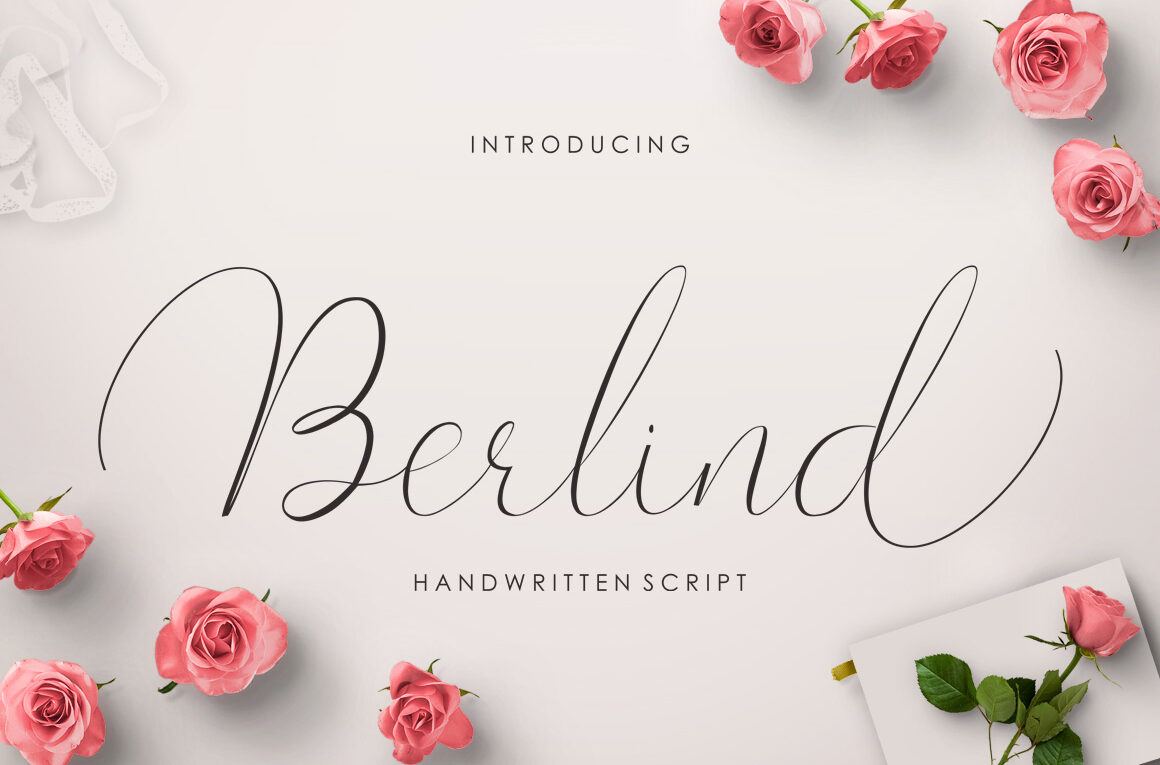
Introducing Berlind Font: A Timeless Handwritten Typeface
In the world of typography, few fonts manage to strike a balance between classic elegance and modern versatility. Berlind Font is one such exceptional typeface that has captured the hearts of designers and crafters alike. This beautiful formal script boasts an elegant touch, making it perfect for a wide range of brandable designs and styles.
The Characteristics of Berlind Script
Berlind Script is a handwritten typeface with classic roots, drawing inspiration from traditional calligraphy. Its elegant strokes and fluid connections evoke a sense of sophistication and refinement. The font features a range of alternate characters, including:
- Initial and terminal letters for added flair
- Alternates for varied typographic expressions
- Swashes for a touch of drama and elegance
- Ligatures for seamless connections
These features allow designers to experiment with different styles and create unique visual identities for their brands.
Berlind Font in Design and Crafting
Berlind Font is an incredibly versatile typeface that can be used in a variety of design and crafting projects. Its classic elegance makes it suitable for:
- Logo design and branding
- Stationery and invitations
- Web design and digital marketing
Whether you’re creating a luxury brand or a personal craft project, Berlind Font is sure to add a touch of sophistication and style.
Multiple Language Support
In today’s globalized world, designers need fonts that can support multiple languages. Berlind Font rises to the challenge, offering support for a wide range of languages. This feature makes it an excellent choice for designers working on international projects or those who want to cater to a diverse audience.
Why Choose Berlind Font?
With so many fonts available, why choose Berlind Font? Here are just a few reasons:
- Unique and distinctive: Berlind Font offers a unique and distinctive style that sets it apart from other typefaces.
- Highly versatile: The font’s range of alternate characters and language support make it suitable for a wide range of design and crafting projects.
- Elegant and sophisticated: Berlind Font’s classic elegance and refined strokes evoke a sense of sophistication and luxury.
Tips for Using Berlind Font
To get the most out of Berlind Font, here are a few tips:
- Experiment with alternates: Take advantage of the font’s alternate characters to create unique and varied typographic expressions.
- Pair with contrasting fonts: Pair Berlind Font with contrasting fonts to create visual interest and hierarchy.
- Use for headlines and titles: Berlind Font’s elegant strokes and refined connections make it perfect for headlines and titles.
Berlind Font is a timeless handwritten typeface that offers a perfect blend of classic elegance and modern versatility. Its range of alternate characters, language support, and high-quality design make it an excellent choice for designers and crafters. Whether you’re creating a luxury brand or a personal craft project, Berlind Font is sure to add a touch of sophistication and style.